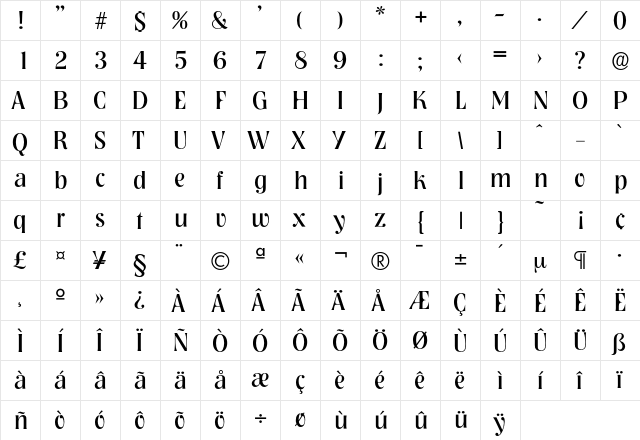
Nashville-Regular Regular
Design Context for Nashville-Regular Typeface
Nashville-Regular offers clean, dependable letterforms without strong stylistic allegiance, making it a practical choice for designers who need flexibility.
Pro Tip: Use Nashville-Regular in both headline and body roles to test its range before committing to a single application.